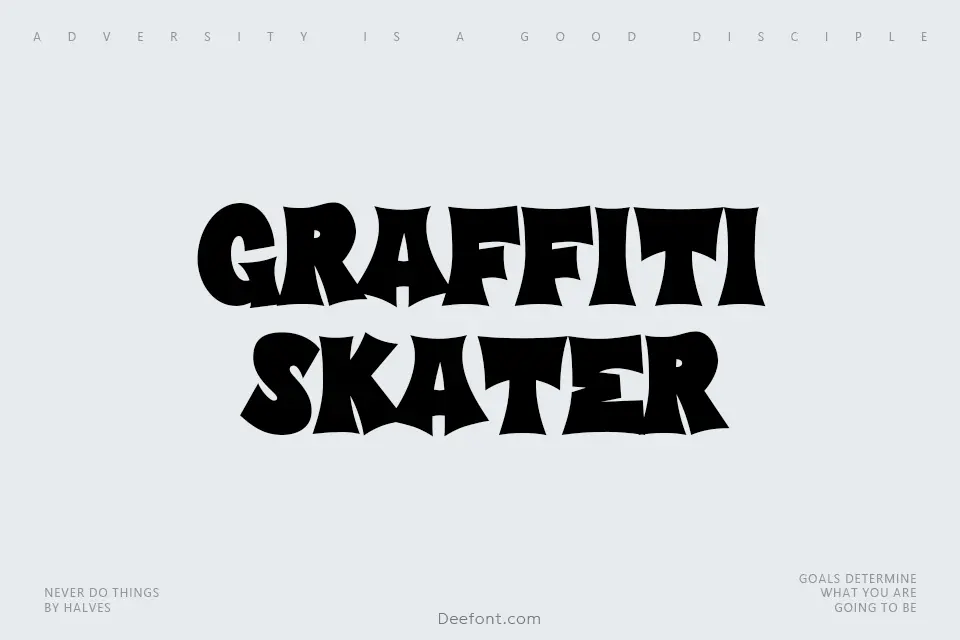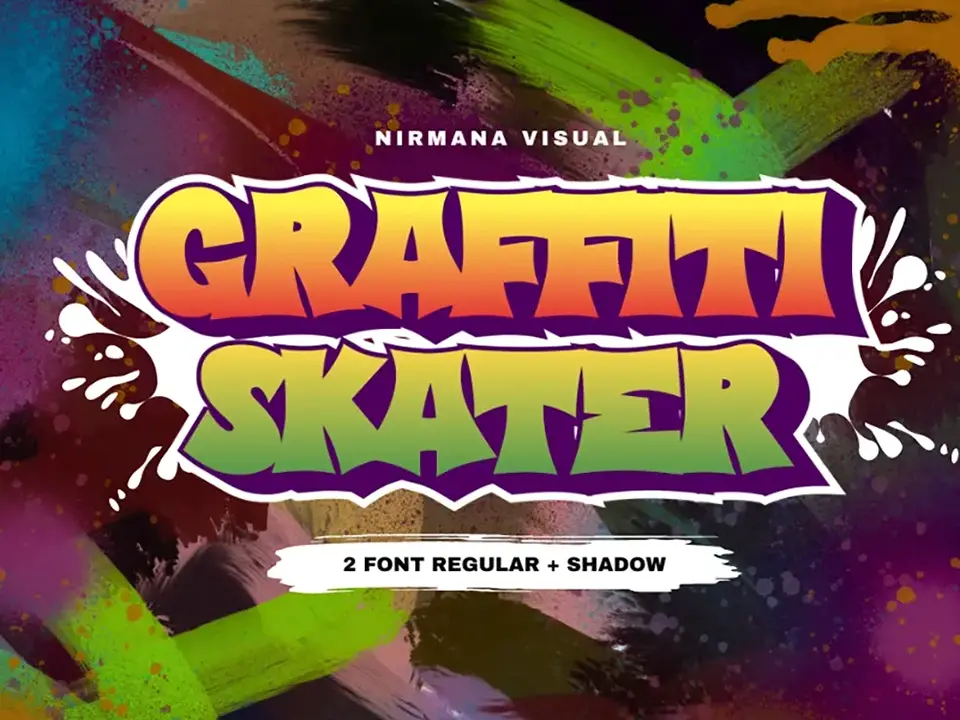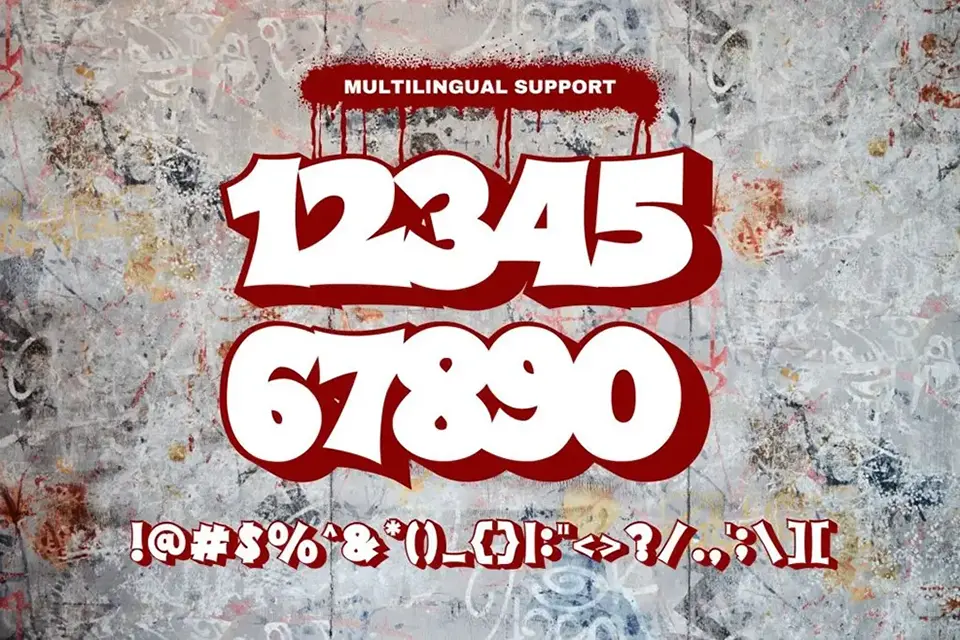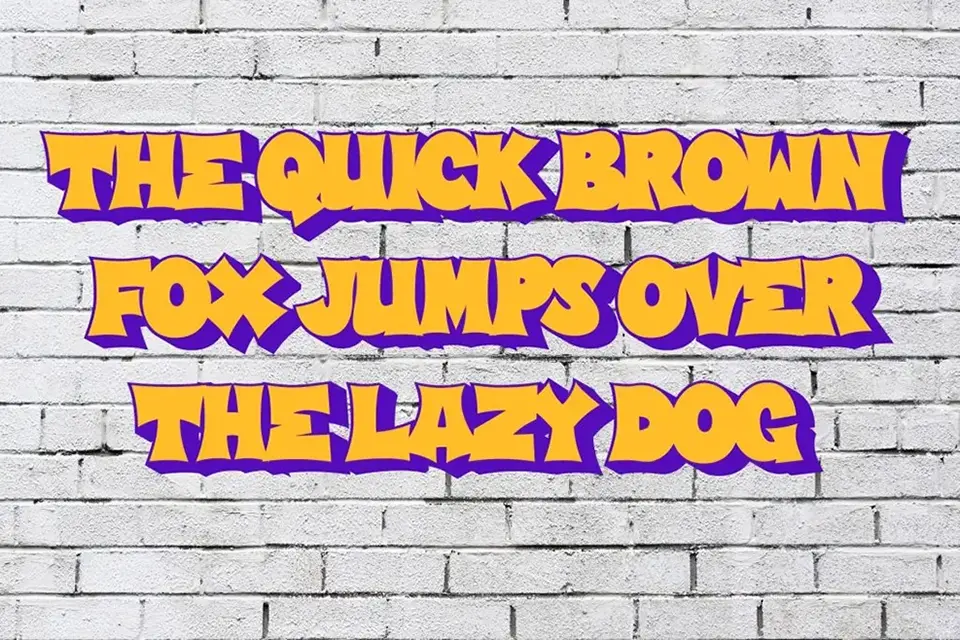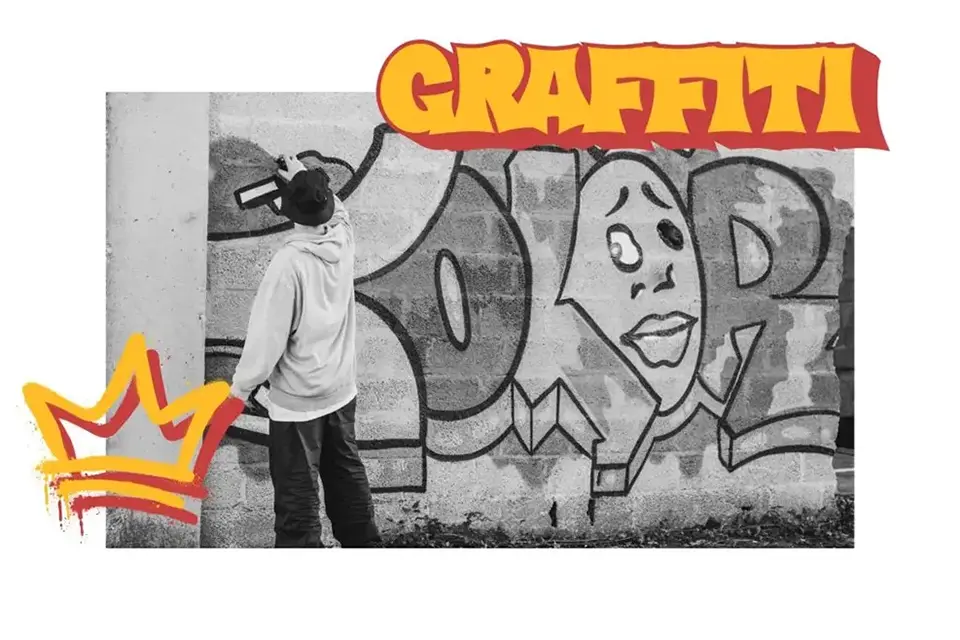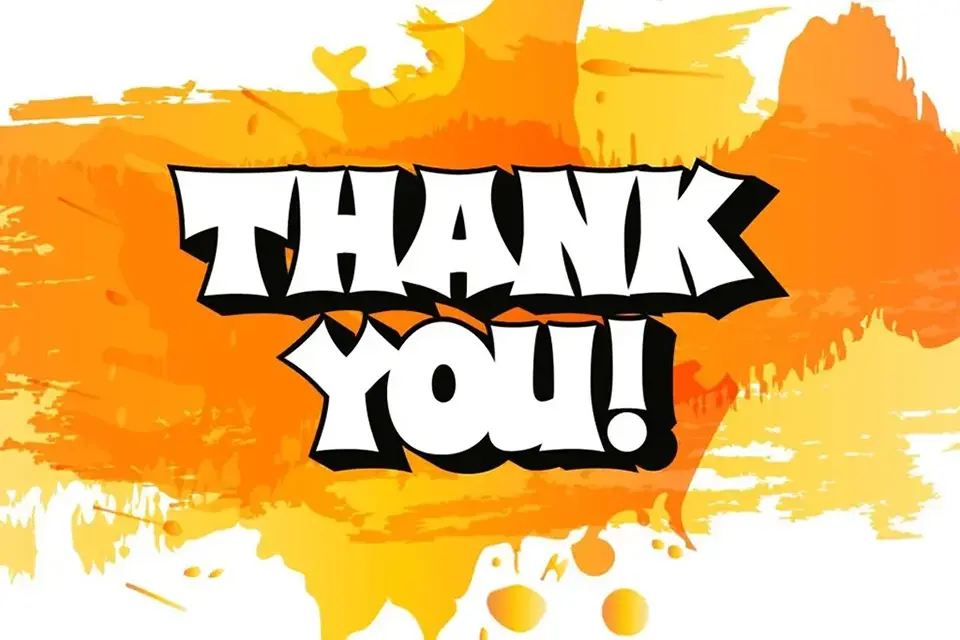
Graffiti Skater Font
Graffiti Skater is a bold and dynamic display typeface that captures the irreverent energy of street art with edgy, angular characters and unique embellishments. This graffiti-inspired font features jagged edges and an aggressive style resembling spray-painted lettering, making it ideal for urban-inspired designs, music posters, advertisements, promotional materials, and creative branding projects requiring an edgeless, rebellious aesthetic. Perfect for headlines, signage, product packaging, and any design that demands a vibrant, playful, and energetic typographic statement.